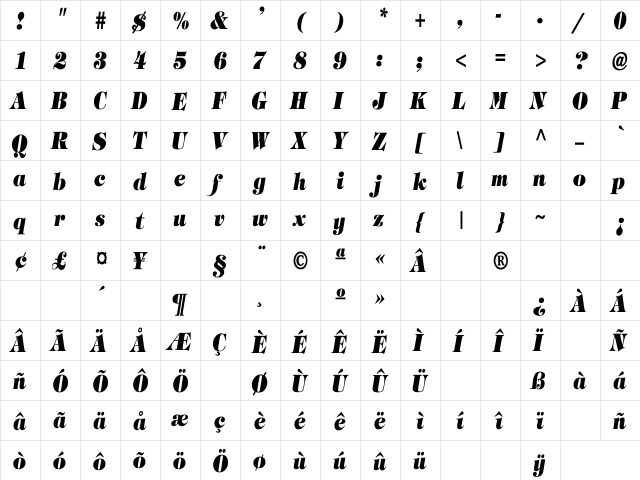
Timpani_Heavy-Italic Cn Regular
Design Context for Timpani_Heavy-Italic Cn Typeface
Timpani_Heavy-Italic Cn takes a measured approach to typography — its balanced proportions and neutral character make it a reliable workhorse for both digital and print work. Its italic angle brings a sense of urgency and motion to the letterforms.
Pro Tip: Try Timpani_Heavy-Italic Cn for annotation and caption copy alongside an upright companion — the contrast in angle creates a dynamic but ordered typographic system.